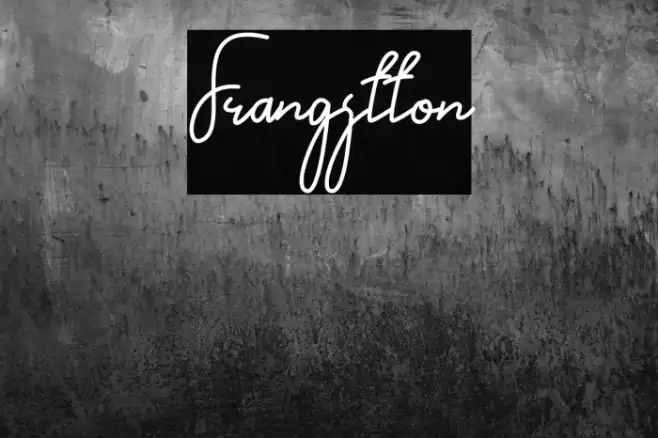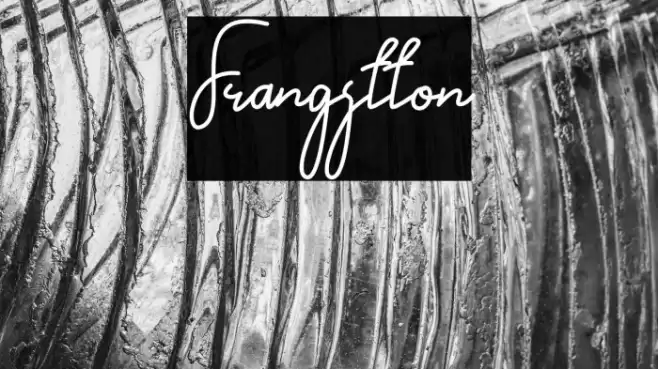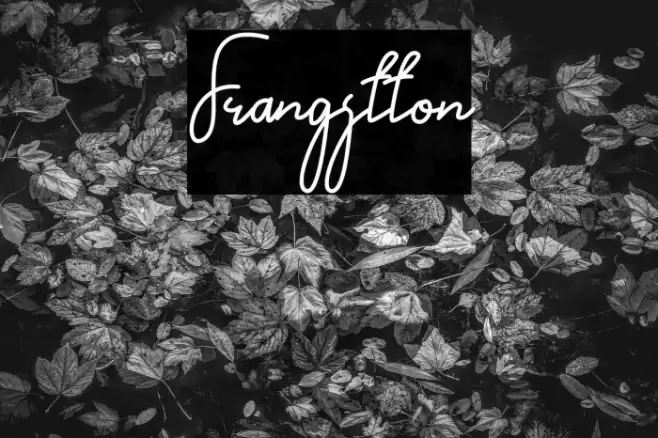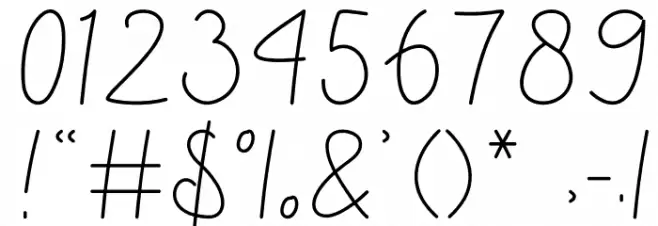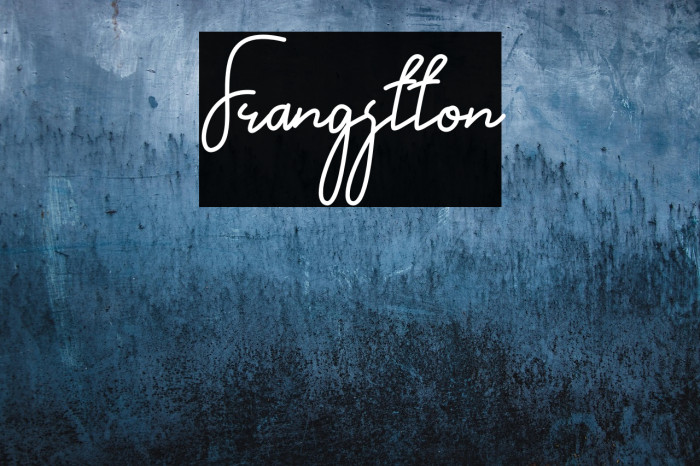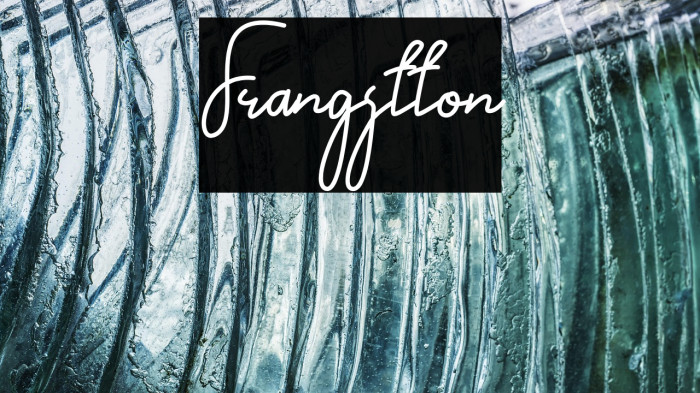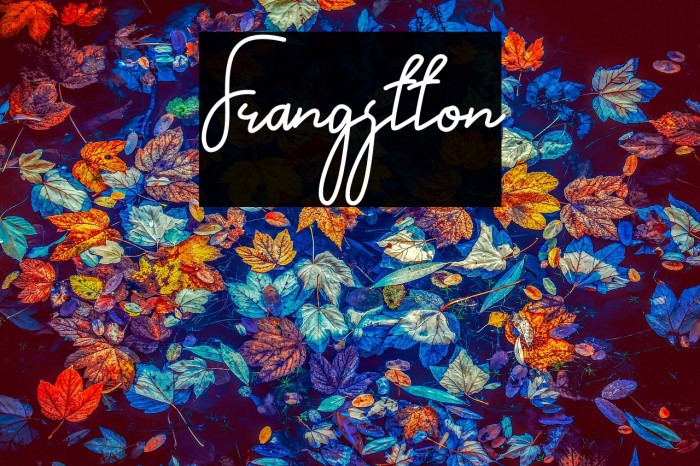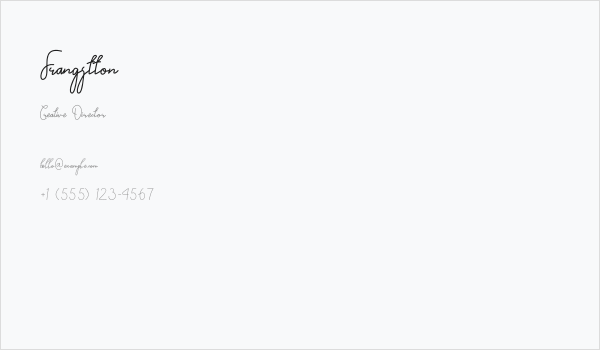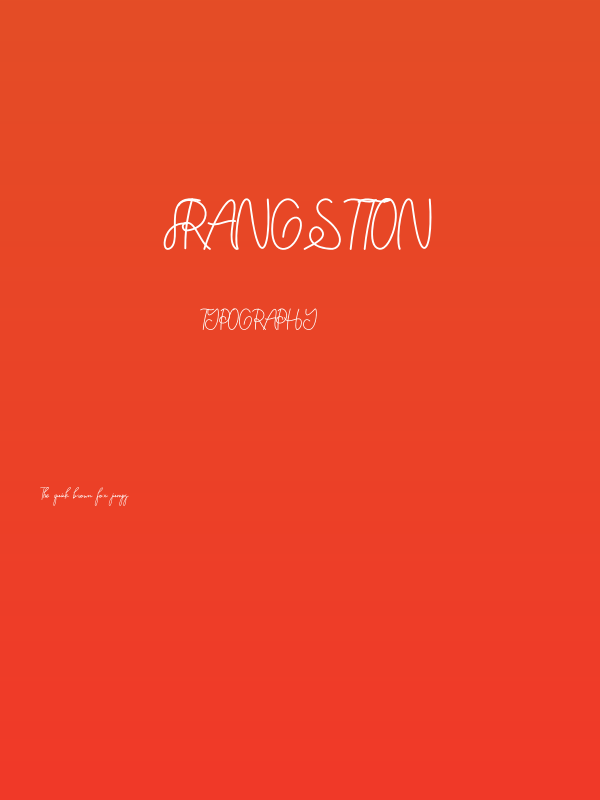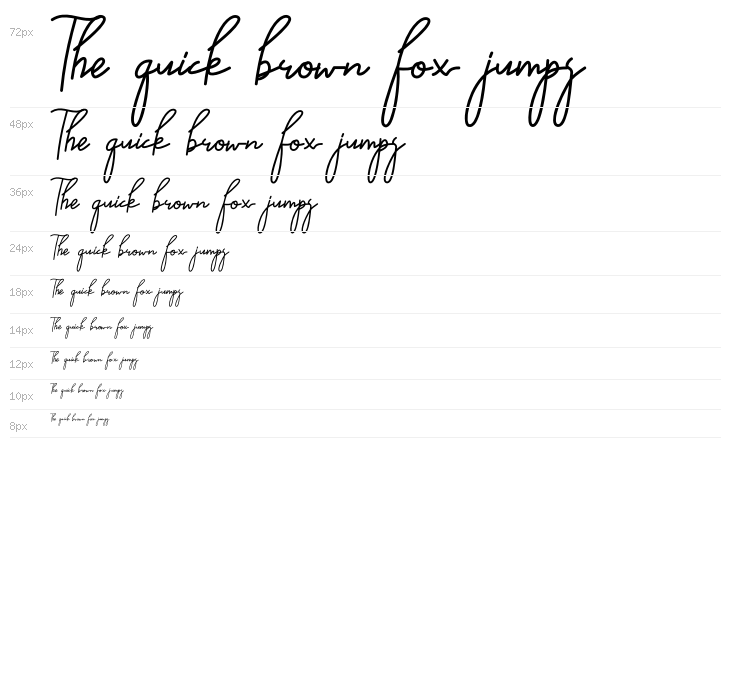
Frangstton Font
Frangstton Description
This font features a playful and whimsical style, characterized by its flowing, cursive lowercase letters and tall, narrow uppercase letters. The uppercase letters have a unique, hand-drawn quality with loops and curves that add a sense of movement and energy. The lowercase letters are more connected, resembling a casual script, which contrasts with the more structured and upright uppercase forms. The numerals are consistent with the overall style, maintaining the playful and informal aesthetic. Special characters are integrated seamlessly, enhancing the font's versatility. The overall appearance is both artistic and approachable, making it suitable for creative and informal applications.
A playful, whimsical font with flowing cursive lowercase and tall, narrow uppercase letters from Regular fonts.
- Proposed Projects: Ideal for greeting cards, invitations, playful branding, and artistic projects.
- Use Case: Logos, Headlines, Artistic projects